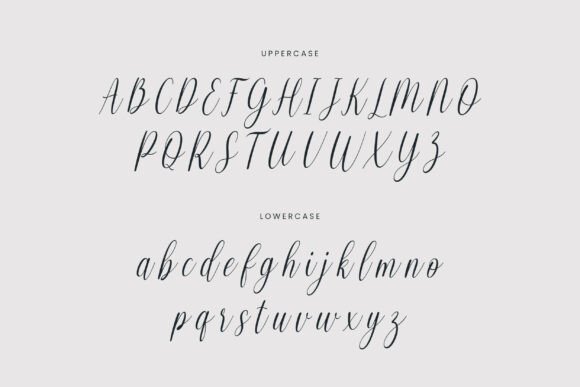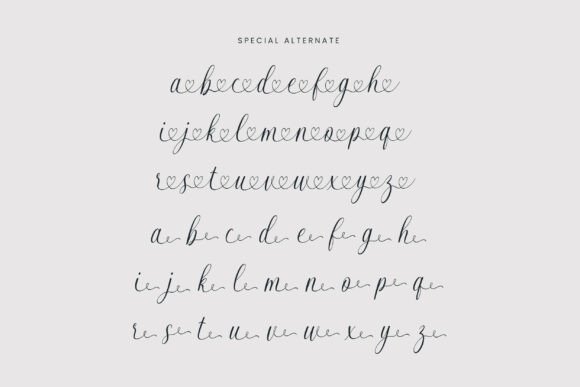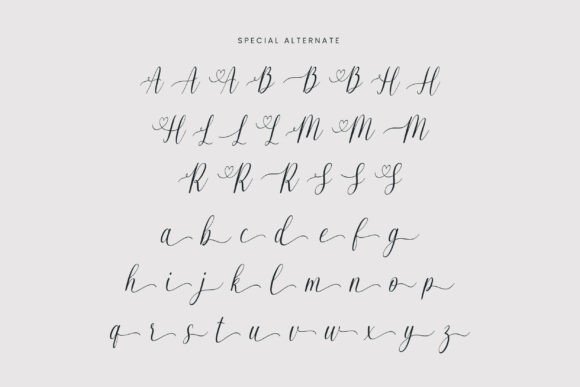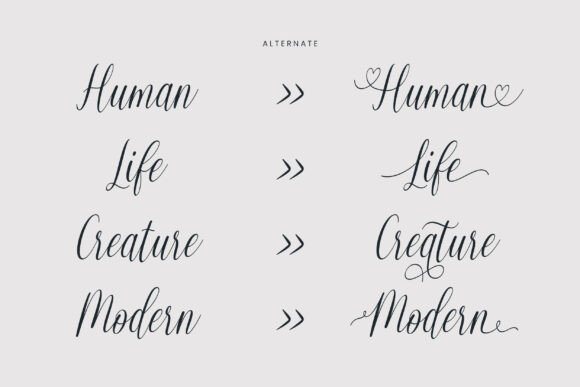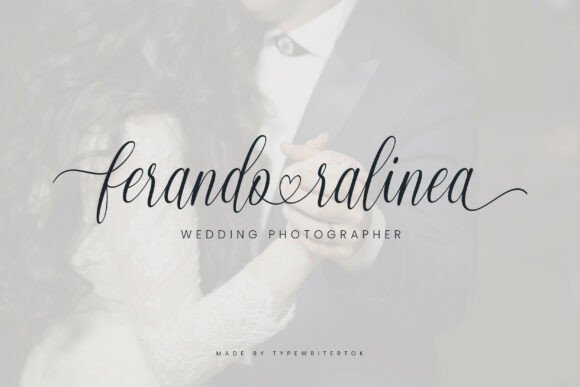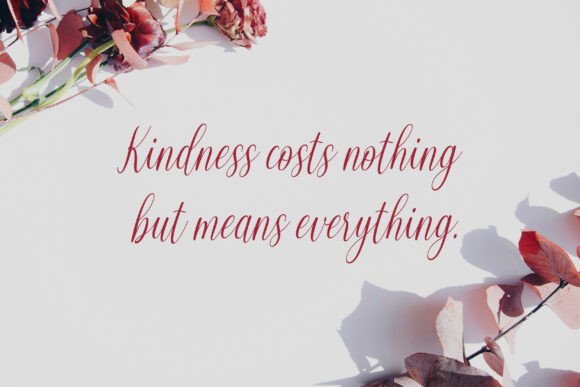
Adding Elegance to Your Creations: Introducing Balerina Font
Have you ever found yourself lost in a world of endless design possibilities, searching for the perfect font to capture the essence of a special moment? Maybe it’s a wedding invitation, a love letter, or a greeting card that needs to convey your heartfelt emotions. Whatever it is, we’ve got you covered!
Meet Balerina Font, a stunning wedding script font designed to bring romance and elegance to your projects. Its flowing strokes and delicate curves make it the perfect choice for adding a touch of sophistication to your designs. Whether you’re a seasoned designer or a creative enthusiast, Balerina Font is a valuable addition to your toolkit, allowing you to bring your vision to life with ease.
Balerina Font Key Features
- Unique Characteristics: The font features elegant, flowing lines and intricate details, making it ideal for fashion, beauty, and luxury brands.
Ballerina Font Review
Ballerina Font is a beautiful script font that catches the eye with its elegant and feminine touch. ✨ It’s perfect for wedding invitations, baby shower cards, or any other occasion where you want to add a touch of sophistication. The font is well-suited for headlines and titles, and it’s also a great choice for body text if you’re looking for a more casual, handwritten feel.
- The Ballerina Font has a wide range of ligatures and swashes that add to its charm. ✨ It’s perfect for creating a sense of movement and flow.
However, there are a few limitations to keep in mind: ⚠️ The font may not be as legible at very small sizes, and it can be tricky to read in certain font sizes. Additionally, the font is not as comprehensive as some other fonts, with limited punctuation and symbol options.
Overall, I’m impressed with the Ballerina Font. It’s a beautiful and versatile font that’s perfect for adding a touch of elegance to your designs. With a little creativity and experimentation, you can use this font to create stunning and memorable designs.
Getting the Most Out of the Ballerina Font
To get the most out of the Ballerina font, try using it for:
– Fashion and beauty branding
– Whimsical and feminine designs
Experiment with different font sizes, colors, and styles to achieve a unique and eye-catching look.
Alternatives to Balerina Font for Designers
Playfair Display is a luxurious and elegant script font, perfect for use in invitations, magazines, and high-end branding. It has a similar classic and sophisticated feel to Balerina Font, but with a more refined and ornate touch.
Comparison to Balerina Font: While both fonts are elegant and sophisticated, Playfair Display has a more dramatic flair and is better suited for making a statement. Balerina Font is more understated and versatile.
Great Vibes is a modern and stylish script font, ideal for use in fashion, beauty, and lifestyle branding. It has a similar feel to Balerina Font, but with a more relaxed and casual touch.
Comparison to Balerina Font: While both fonts are stylish and modern, Great Vibes is more laid-back and suitable for a wider range of applications. Balerina Font is more formal and elegant.
Carolyna Pro is a elegant and refined script font, perfect for use in high-end branding, luxury goods, and fashion. It has a similar feel to Balerina Font, but with a more sophisticated and refined touch.